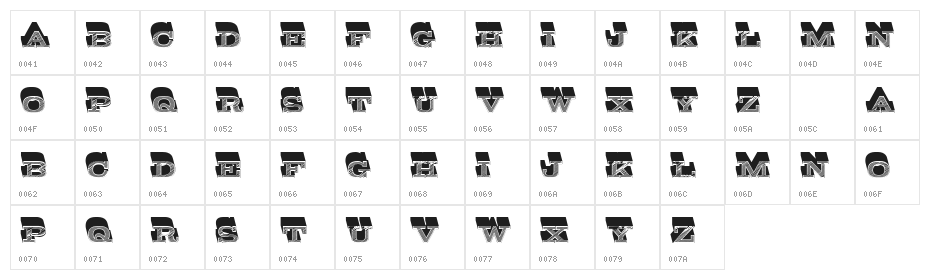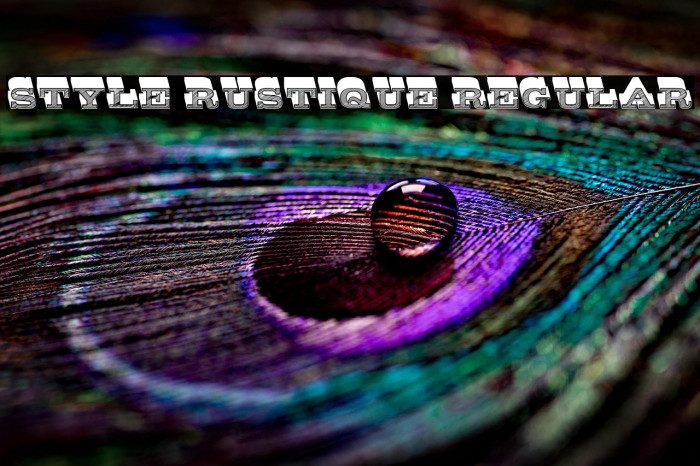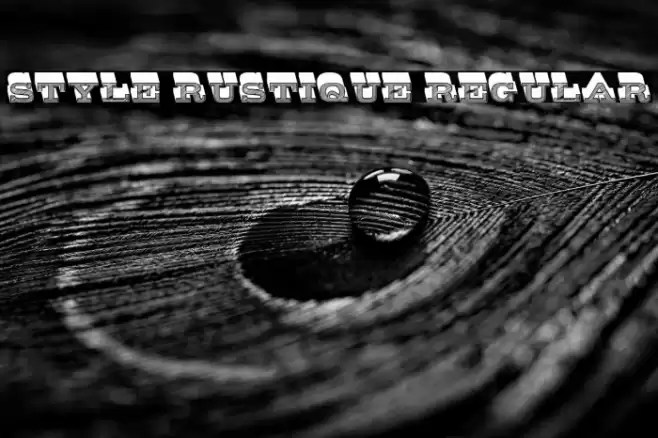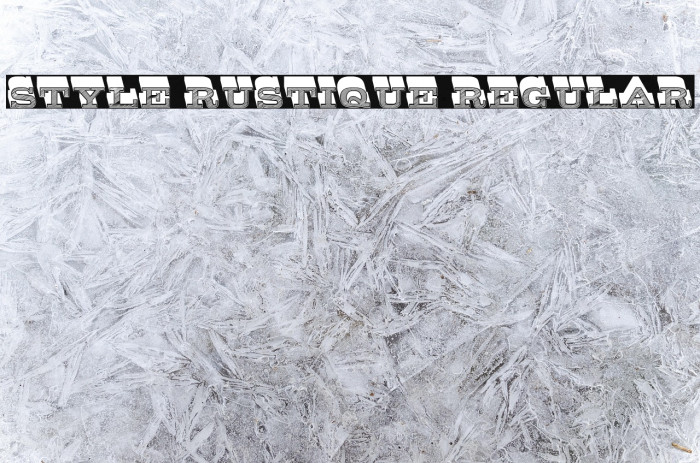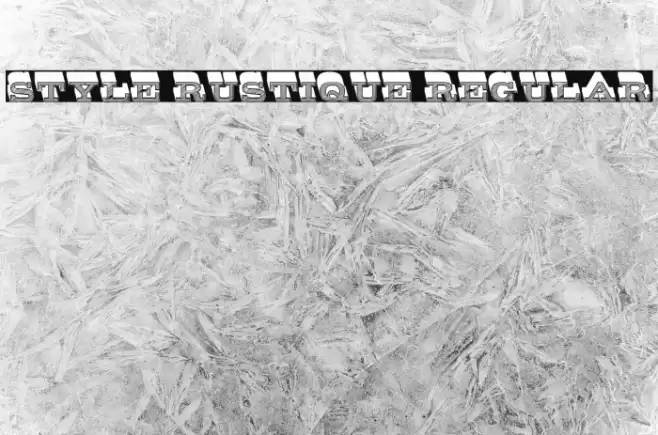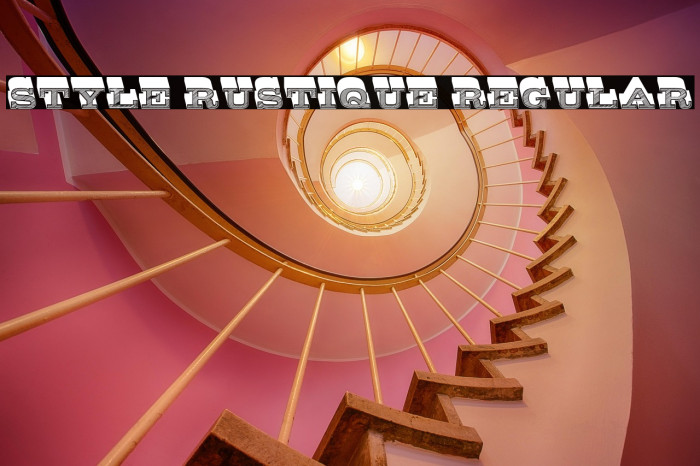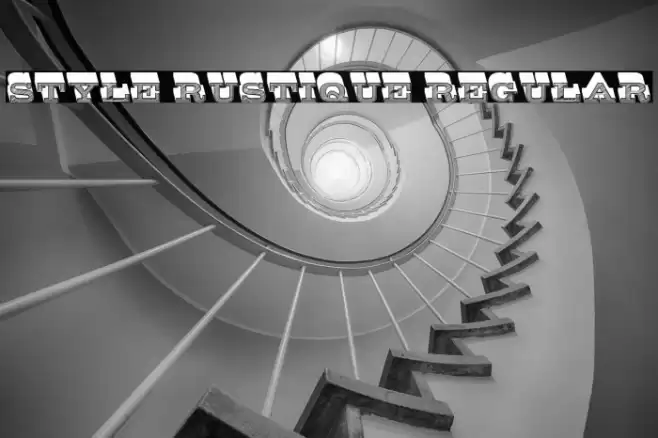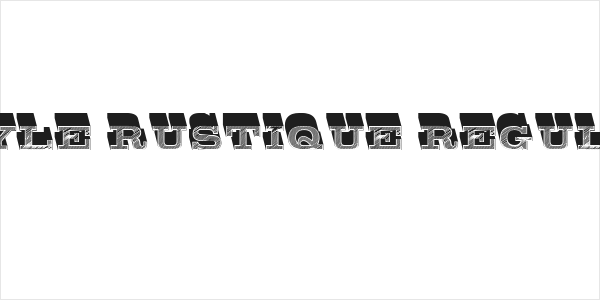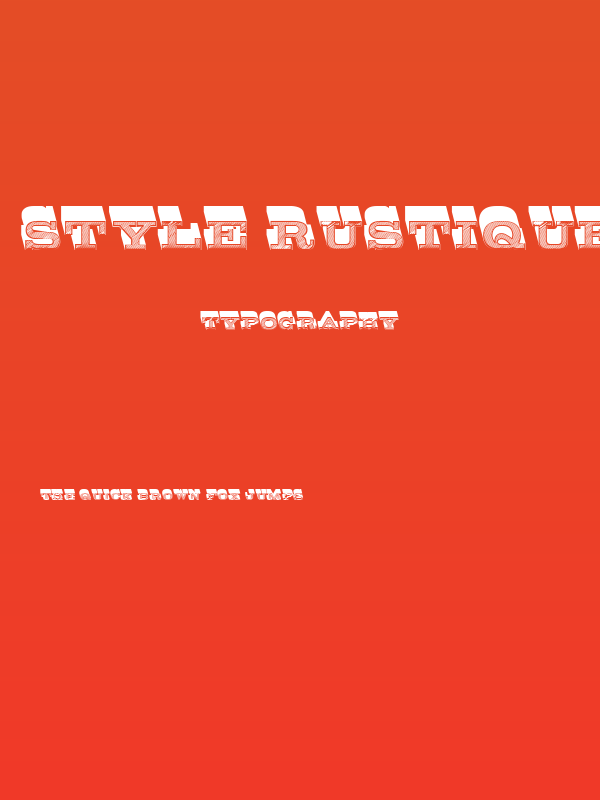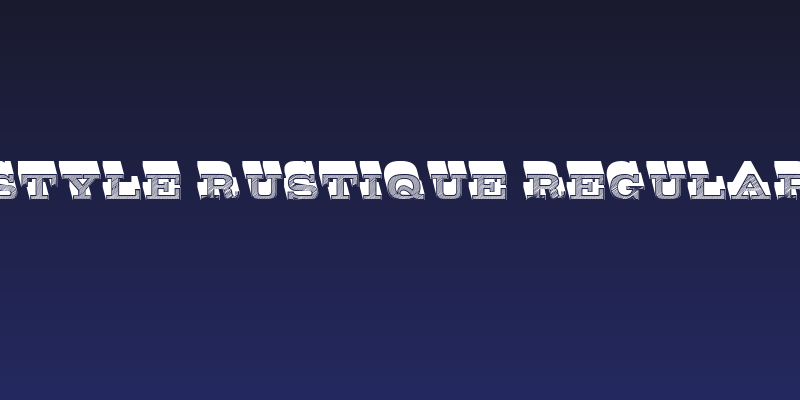
Style Rustique Regular Font
Style Rustique Regular Description
This font features a bold, decorative style with a strong, three-dimensional appearance. The letters are characterized by thick, blocky forms with a shadow effect that gives them depth and a sense of movement. The design incorporates a vintage aesthetic, reminiscent of old signage or posters, making it highly eye-catching. The uppercase letters are uniform in height and width, providing a consistent and balanced look. The font's intricate detailing and bold presence make it suitable for projects that require a standout visual impact.
| Proposed Projects | Ideal for vintage-themed posters, signage, branding, and headlines that require a strong visual impact. |